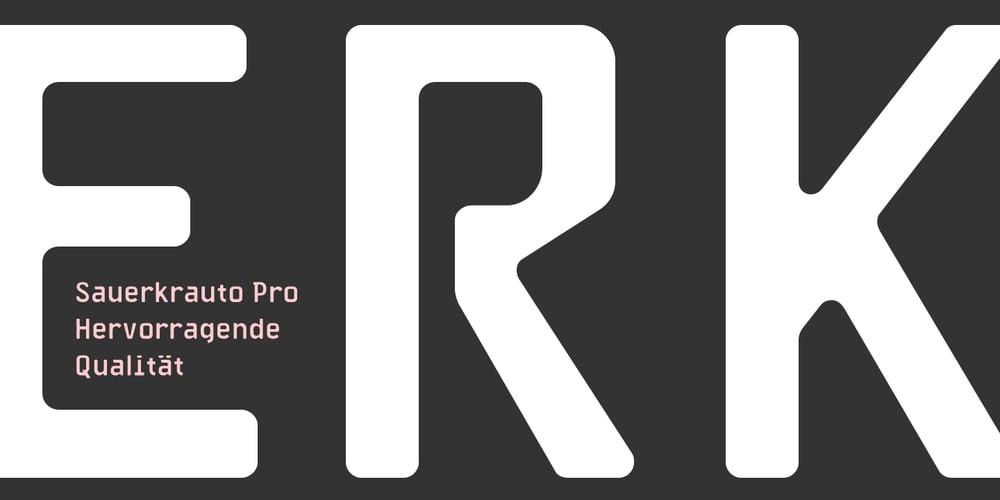
Sauerkrauto Pro Font Family was designed by Martin Lexelius and published by Martin Lexelius Core. Sauerkrauto Pro contains 1 styles and family package options. In the late 90’s, there were many German cars coming into Malmö (where I lived at the time). I was blown away by the font on the license plates. So strange, so strong, peculiar – but still macho. I built the uppercase from my own photos. After this I completed the font with my own lowercase, small caps and punctuation.